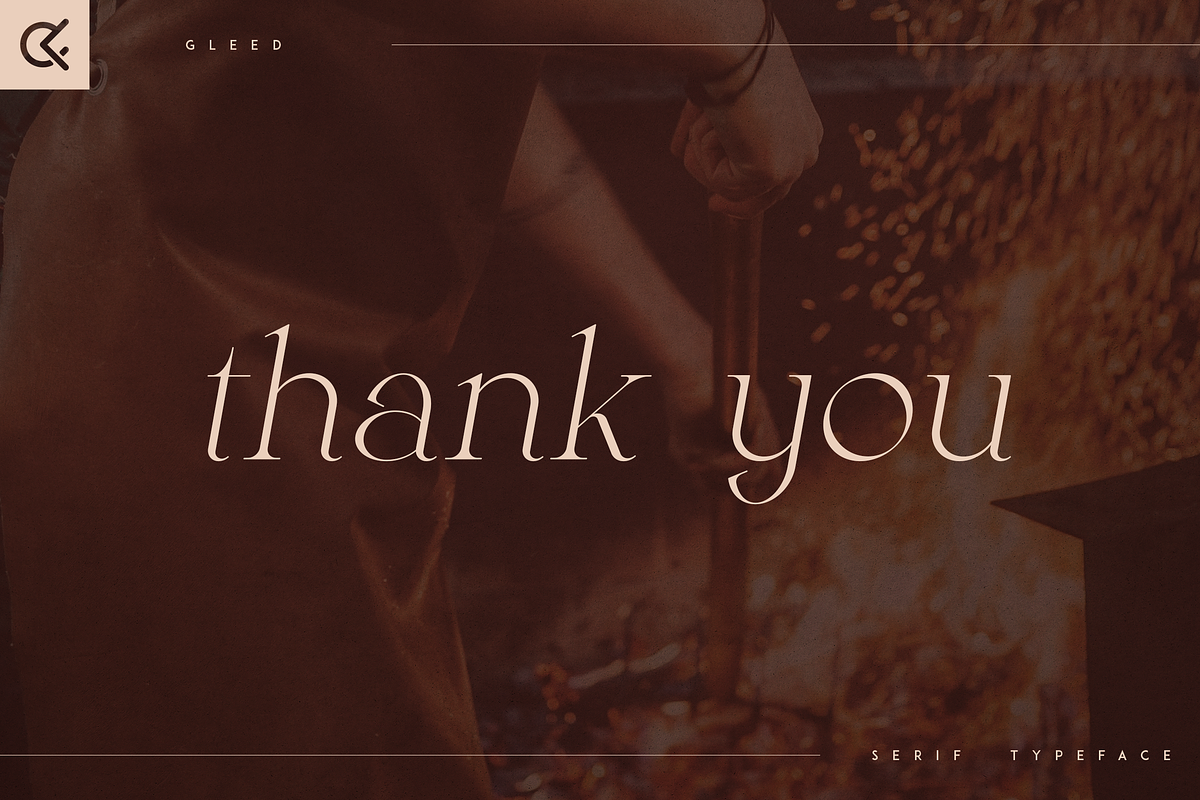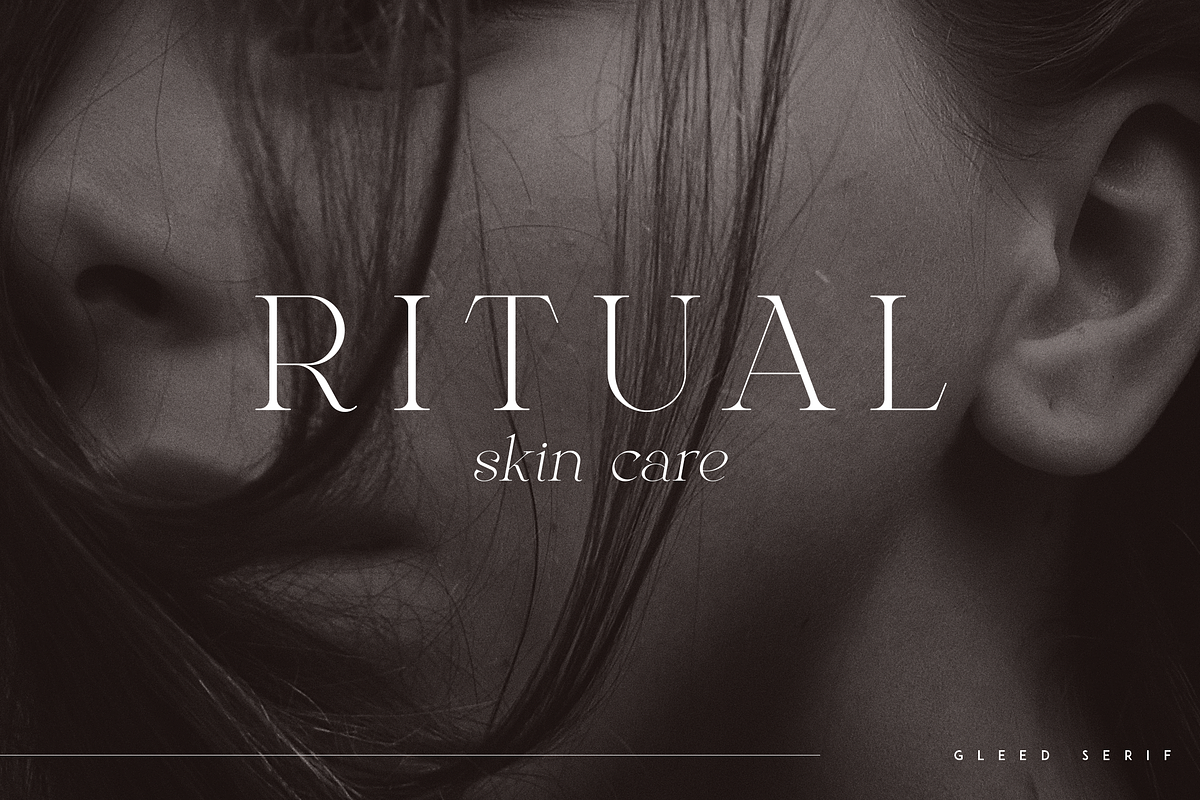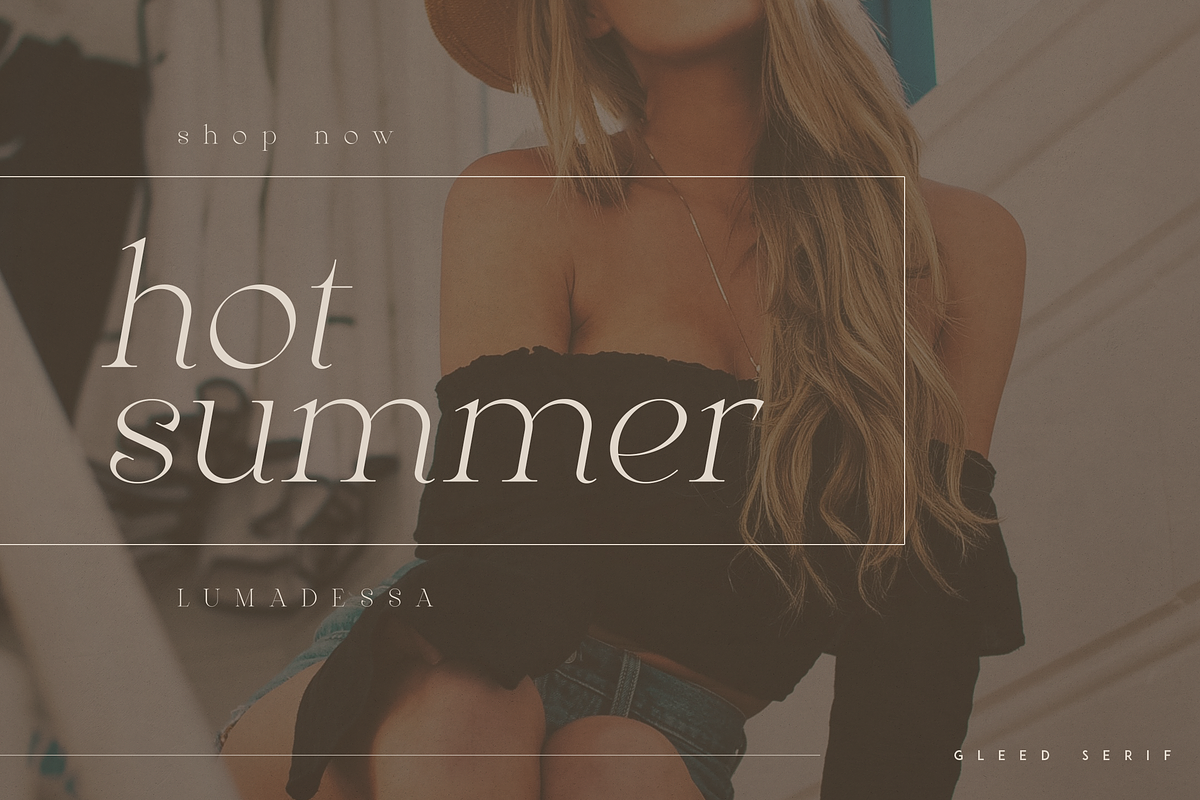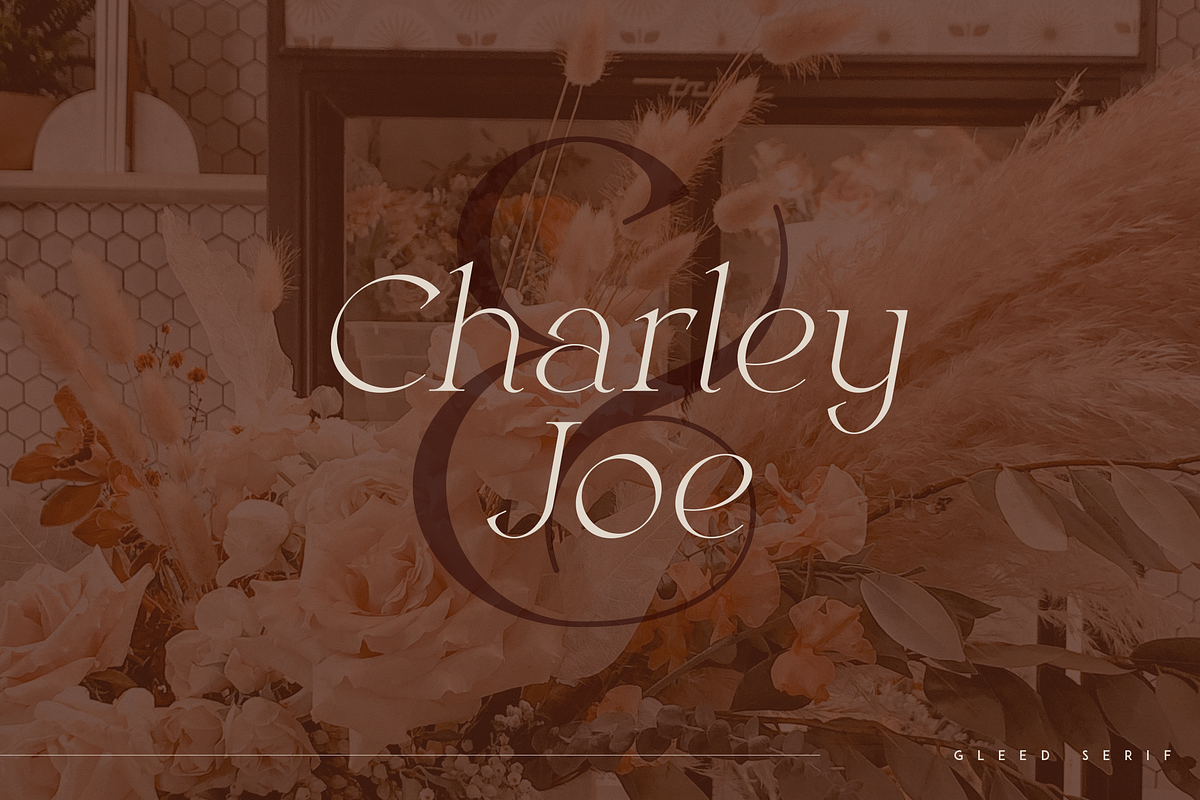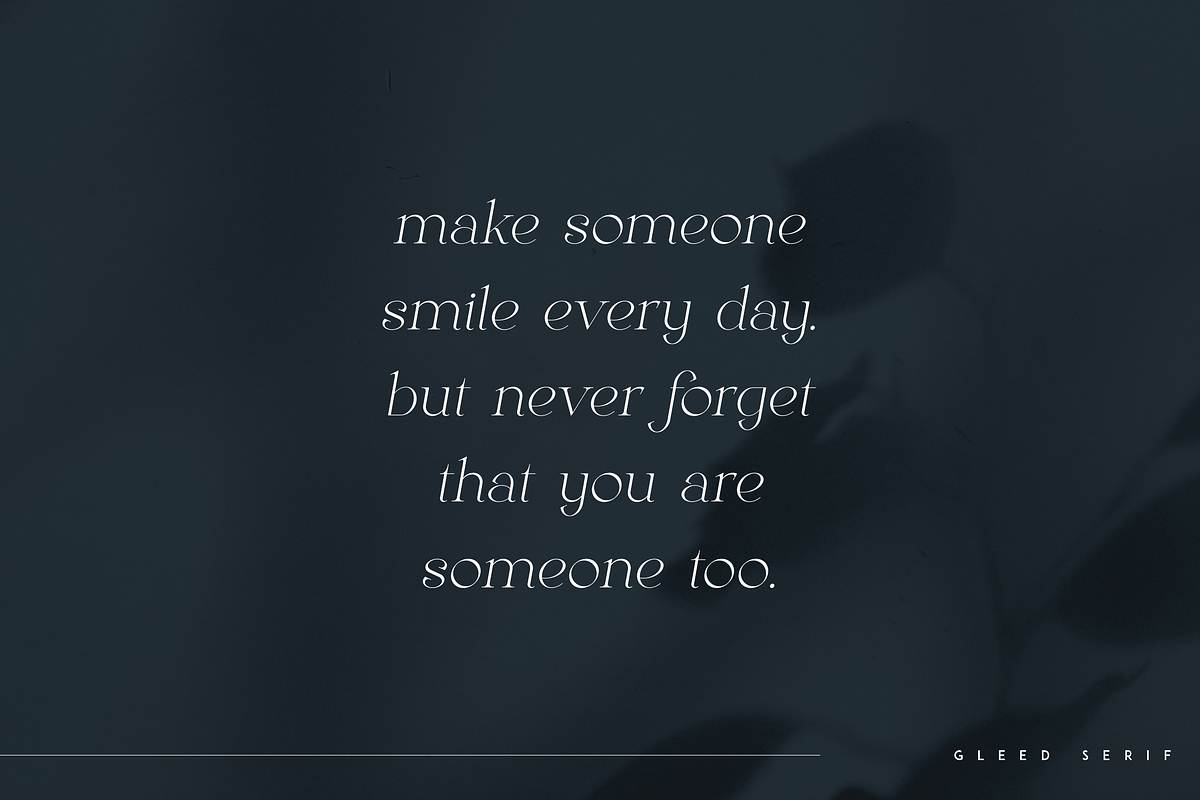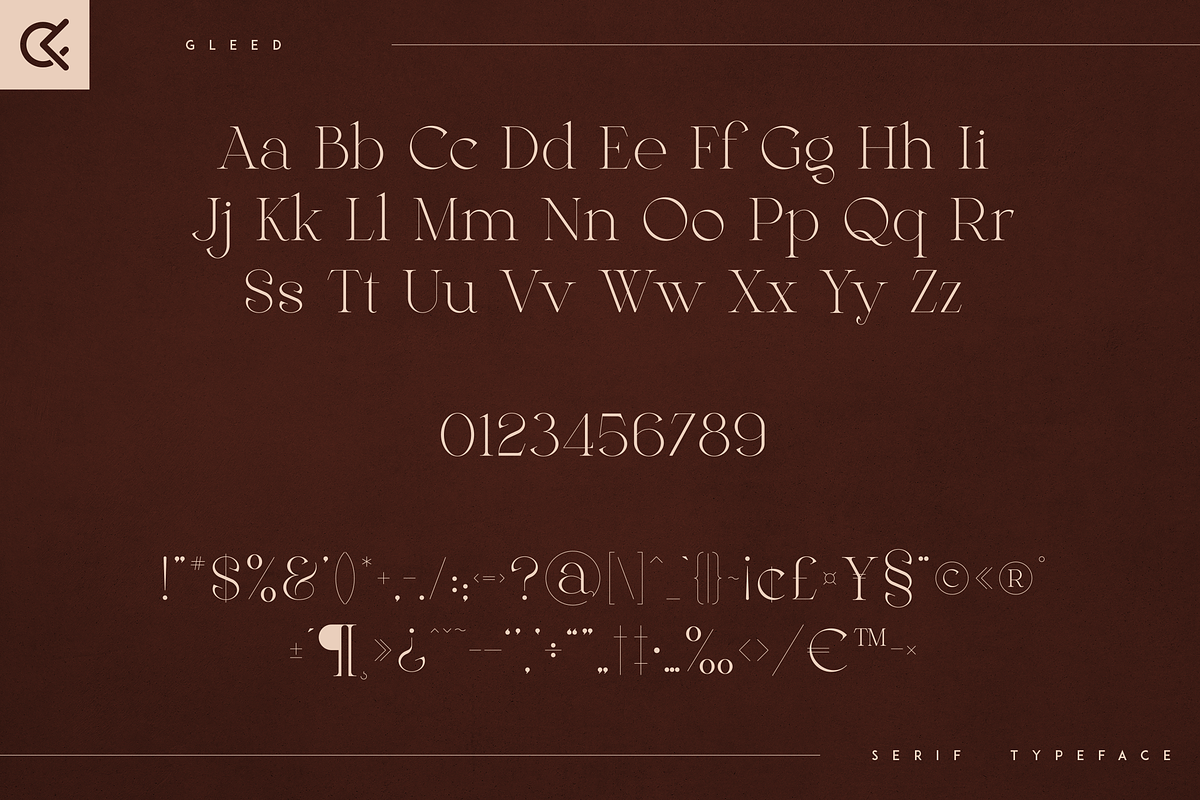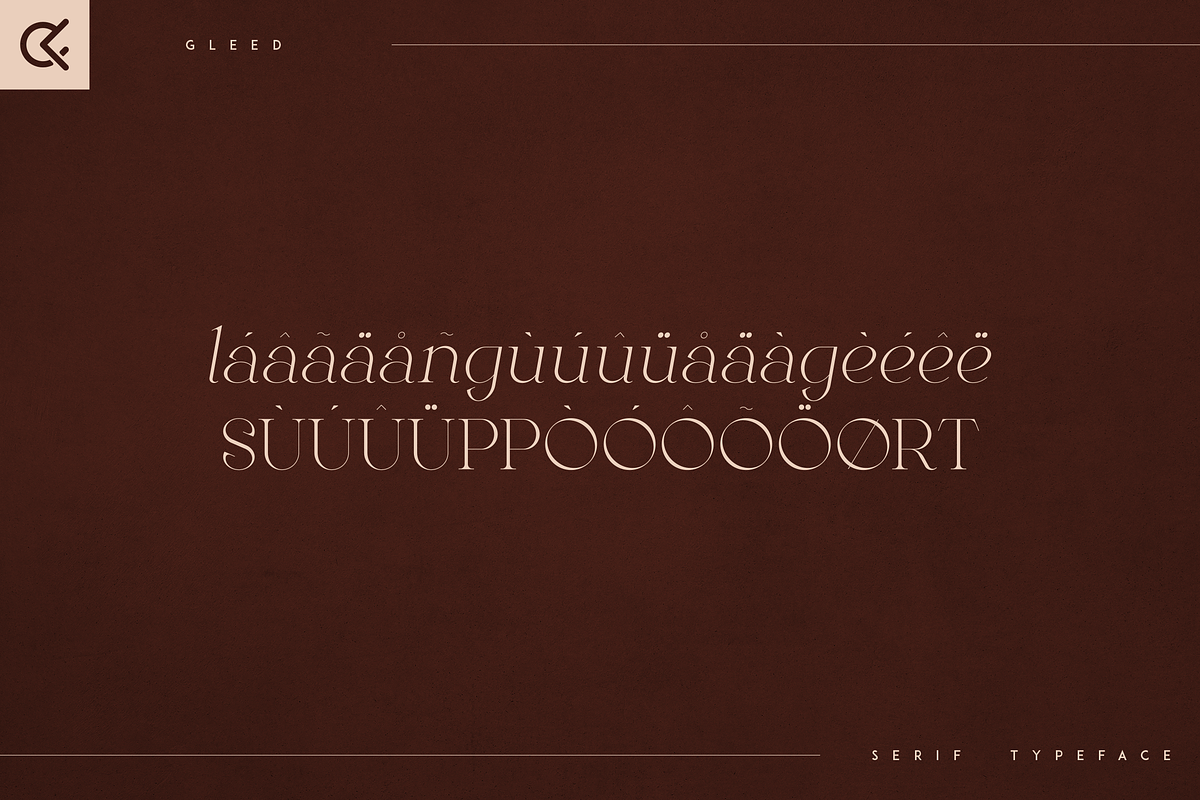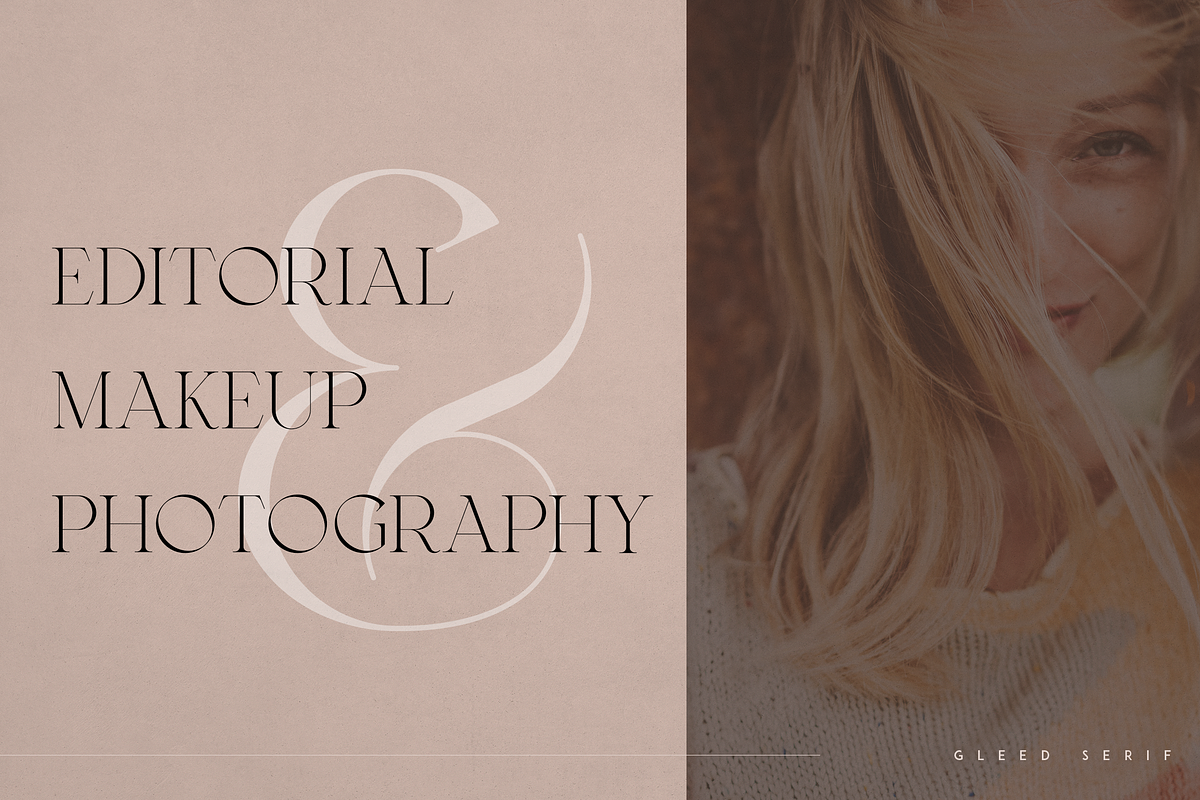
Gleed - minimal serif typeface
Introducing Gleed - serif typeface - 3 fonts
Gleed is versatile and minimal typeface loaded with 3 fonts and multilingual support. It's a very versatile font that works great in large and small sizes.
This font is perfect for branding projects, home-ware designs, product packaging, magazine headers - or simply as a stylish text overlay to any background image.
- Uppercase, lowercase, numeral, punctuation & Symbol
- Italic